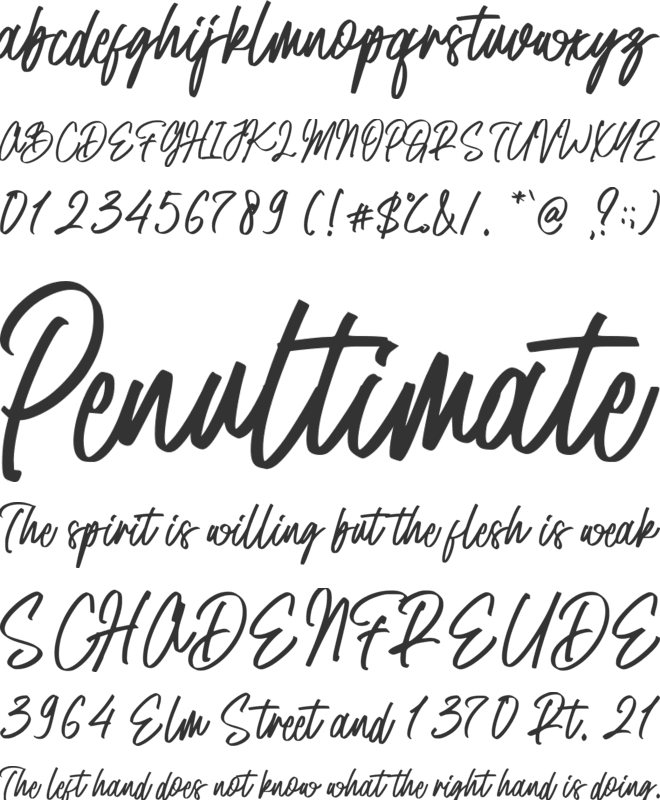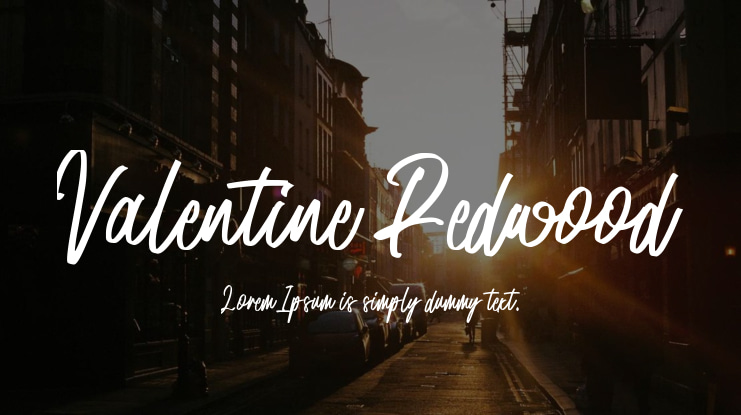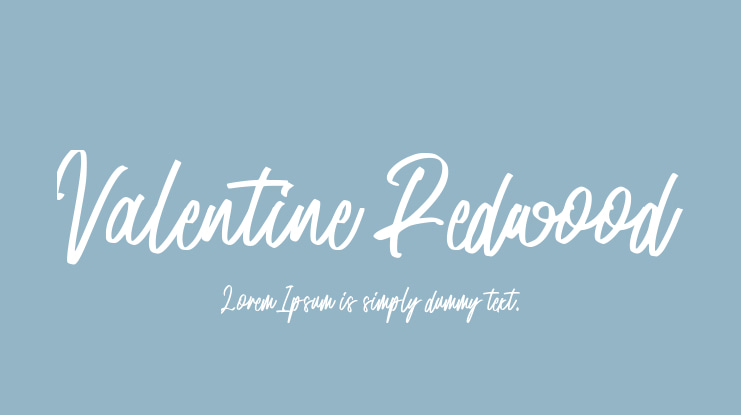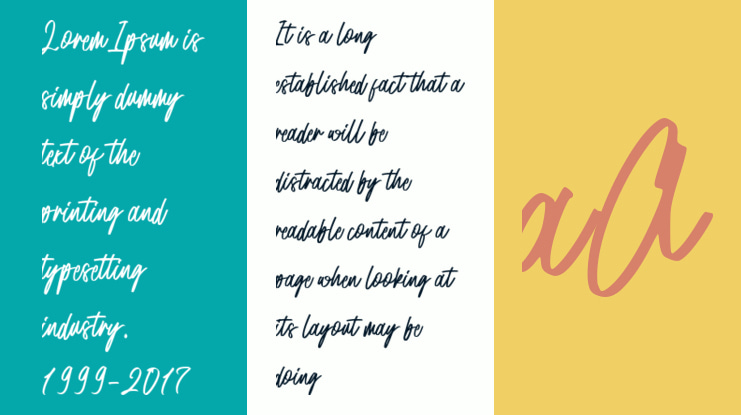
Valentine Redwood Font
Immerse yourself in the sweepingly elegant allure of Valentine Redwood, a meticulously crafted signature font that effortlessly echoes the sentiments of love and romance. Essentially Valentine-themed, it transcends seasonal boundaries and breathes life into diverse design purposes. Valentine Redwood is reminiscent of authentic handwritten strokes, bestowing upon it a delicate natural aesthetic. Complementing this natural design are exquisite lowercase swashes, multiple ligatures, and alternate letters, each presenting a unique versatility. Imbued with charm and sophistication, Valentine Redwood is your key to unlocking design perfection.